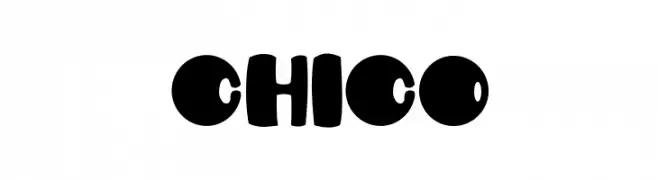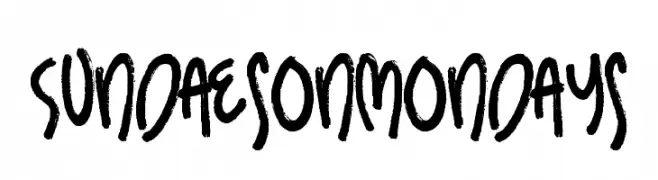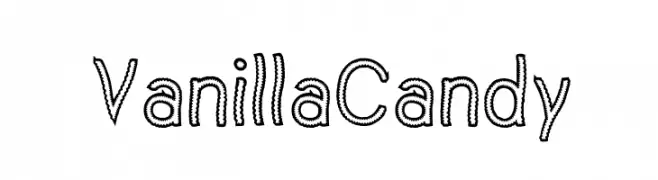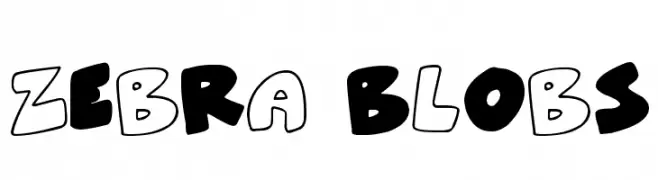
A bold, dripping font with a spooky, horror-themed design.
A playful, bubbly font with a bold, hand-drawn appearance.
A playful, bold font with rounded, bubbly characters and a whimsical flair.
A bold, rounded font with a playful and whimsical style.
A bold, hand-drawn font with a playful and energetic style.
A festive icon set font with birthday and celebration motifs.
Anatomy-themed font with characters resembling human organs and body parts.
A playful, candy-like font with dotted outlines and rounded characters.
A playful, bold, and cartoonish font with a hand-drawn, shadowed style.
A bold, playful font with moon-themed decorative elements and a modern style.